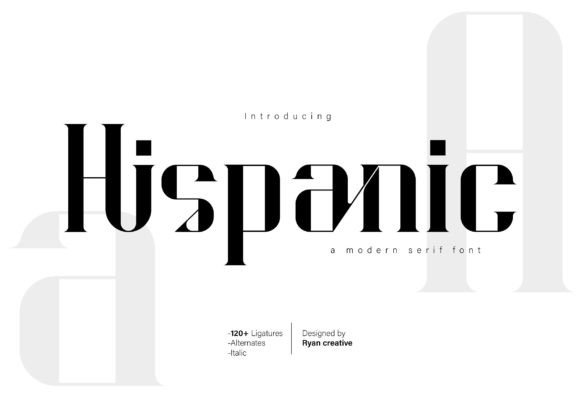
Embark on a typographic odyssey with Hispanic, a captivating serif font family, meticulously crafted for product design. Its essence lies in the perfect balance between classic elegance and contemporary appeal, making it an ideal choice to elevate your designs to new heights of creative expression.
With Hispanic, you'll discover a world of possibilities that extend far beyond the ordinary. Its strong-looking designs, characterized by additional tapers at the ends of each letter, imbue your creations with an aura of concentrated power. Unleash your imagination and explore the depths of creativity as you witness the transformative impact of Hispanic on your designs.
Hispanic's vast repertoire of over 120 ligatures unlocks a new level of versatility, allowing you to seamlessly blend classic and modern elements in your designs. Whether you're working on fashion media, posters, model magazines, typography, promotions, or digital media, Hispanic's adaptability shines through, ensuring it effortlessly complements any project.
The beauty of Hispanic lies not only in its visual appeal but also in its user-friendly nature. It's PUA encoded, which means accessing its amazing glyphs and ligatures is a breeze. With Hispanic at your disposal, you'll find yourself immersed in a design experience that's both effortless and fulfilling, opening up a realm of creative possibilities.
Seize the opportunity to redefine your design aesthetic with Hispanic. Let its charm and elegance captivate your audience, and watch as your creations blossom into masterpieces that resonate with sophistication and charisma. Embrace Hispanic today and embark on a creative journey like no other. Its versatility, coupled with its undeniable charm, will transform your designs into captivating works of art that demand attention.